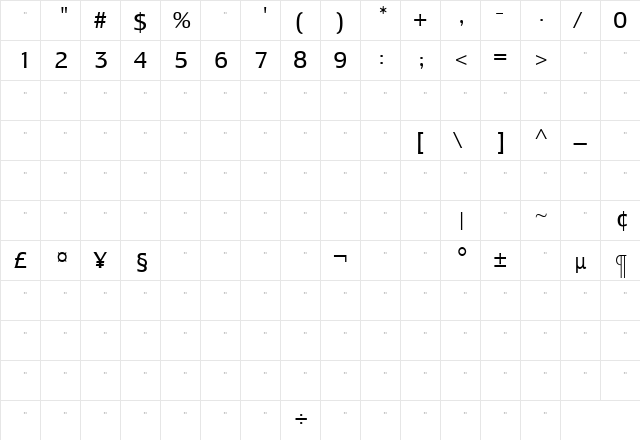
LesmoreBookTab Roman
Design Context for LesmoreBookTab Typeface
LesmoreBookTab offers clean, dependable letterforms without strong stylistic allegiance, making it a practical choice for designers who need flexibility.
Pro Tip: Use LesmoreBookTab in both headline and body roles to test its range before committing to a single application.